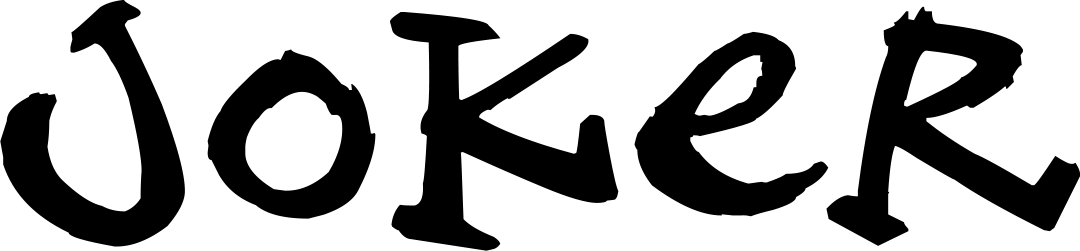
Joker Font
Designed byJohan Waldenstrom
Joker font has some graffiti and playful font styles that you have never seen before. Some characters are large, and some are small, but let’s be real for a second; this lack of order itself is a reason that can differentiate your design from others.